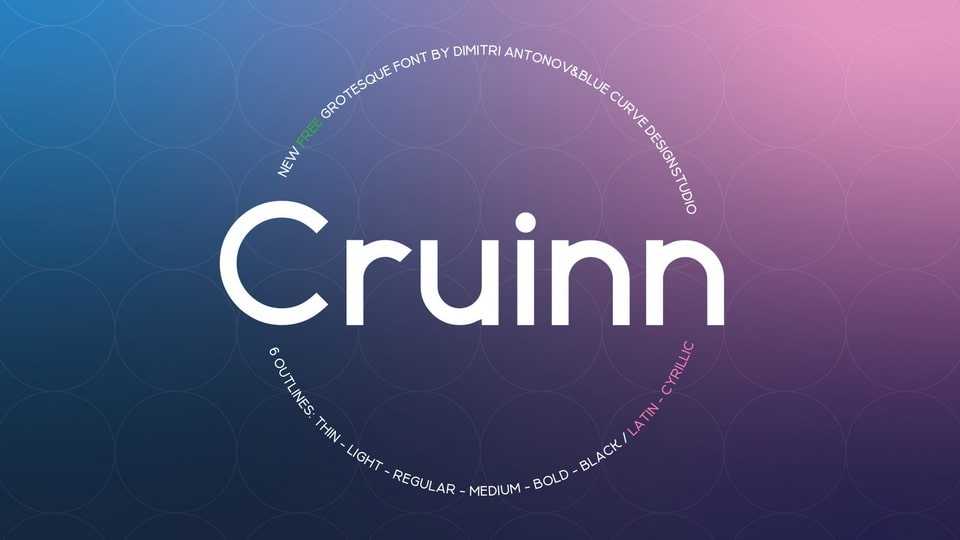
Download Cruinn is a geometric sans serif typeface with 6 styles, which is quite suitable for both headings and text. With its uniform letterforms and well-defined geometric shapes, Cruinn exudes a sense of simplicity, and versatility that’s perfect for a wide range of design projects.
Designer: Dimitri Antonov